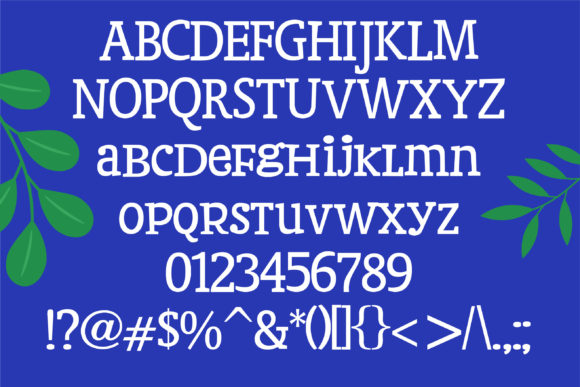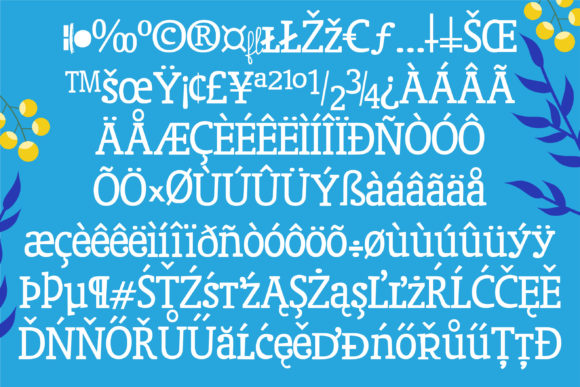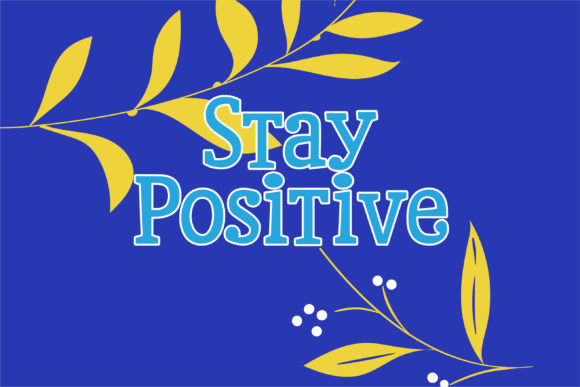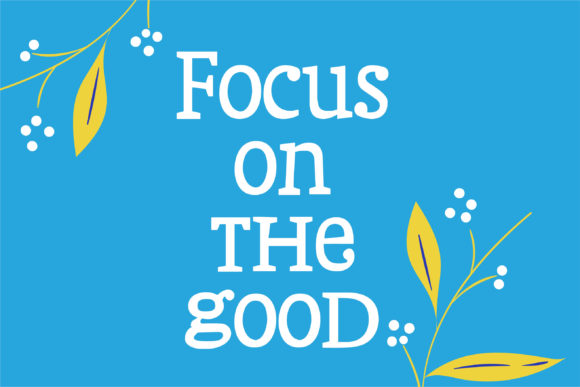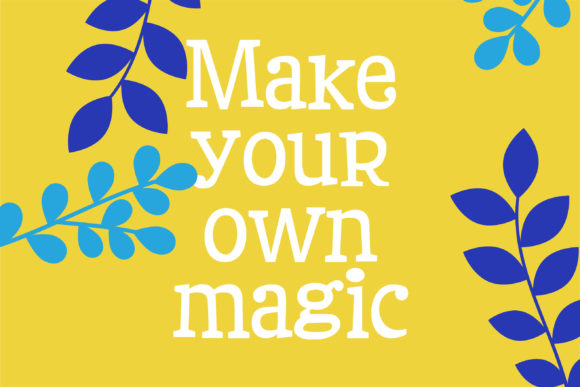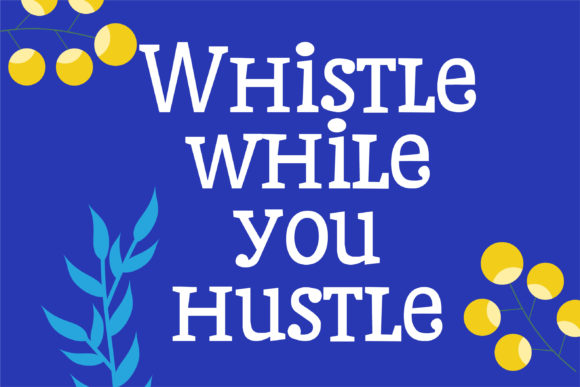
The Blank Check Font: A Relaxed and Simple Serif for Creative Projects
Have you ever been in the middle of a design project, and suddenly, you’re stuck on finding the perfect font? I recall a recent experience where I was working on a DIY craft project, and I needed a font that would complement my hand-drawn illustrations. The project required a calligraphy script that was both elegant and simple. After scouring through numerous font libraries, I stumbled upon the Blank Check font, which became an instant favorite. In this article, I’ll share my experience with this beautiful font and provide a comprehensive guide on how to use it for various creative projects.
A Personal Encounter with Blank Check
I was working on a custom wedding invitation design, and I needed a font that would add a touch of elegance and whimsy. The Blank Check font caught my attention with its relaxed and simple serif design. I was immediately drawn to its unique character and versatility. The font worked perfectly for my project, and I ended up using it for various other designs, including social media graphics and craft projects.
An Honest Review of Blank Check
Here’s what I love about the Blank Check font:
• ✨ Simple yet elegant design: The font’s serif design is perfect for creating a sophisticated look without being too ornate.
• ✅ Highly versatile: Blank Check works well for various design projects, from Instagram graphics to calligraphy scripts for DIY projects.
• 🎨 Great for creative freedom: The font’s simplicity allows you to focus on your creative vision without overpowering your design.
However, I did notice a few quirks:
• 🤔 Limited bold variations: The font could benefit from more bold variations, but the existing ones work well for most designs.
• ⚠️ Some glyphs may require manual adjustments: A few glyphs, such as the ampersand, may require manual adjustments to fit perfectly with the rest of the text.
The Story Behind Blank Check
The Blank Check font was designed with the intention of creating a simple yet elegant serif font that would be perfect for creative projects. The designer aimed to create a font that would be highly versatile and easy to read, making it suitable for a wide range of applications. Although the designer’s background is unclear, it’s evident that they drew inspiration from classic serif fonts and modern design trends.
What is the Blank Check font best suited for? The Blank Check font is perfect for creative projects that require a simple yet elegant serif font, such as DIY crafts, social media graphics, and calligraphy scripts.
Is the Blank Check font suitable for body text? Yes, the Blank Check font is suitable for body text, but it may be more effective in larger sizes or as a display font.